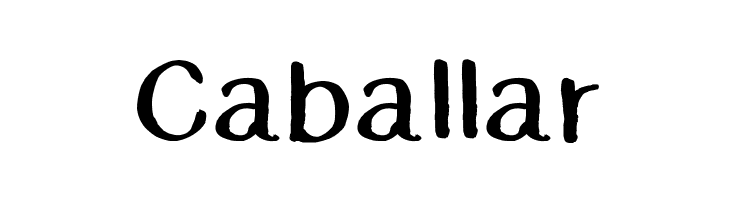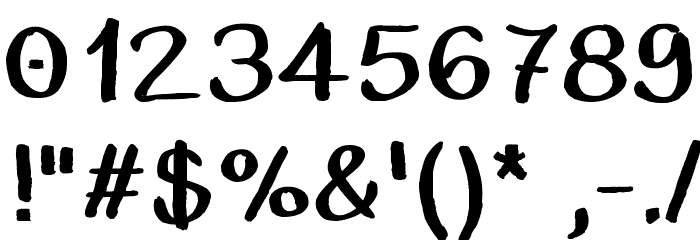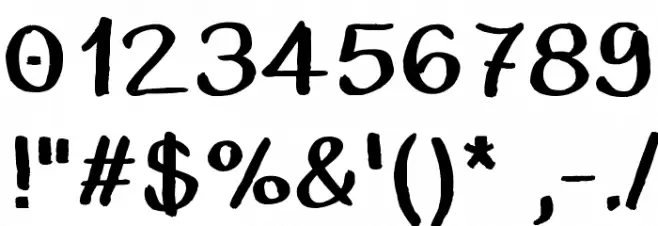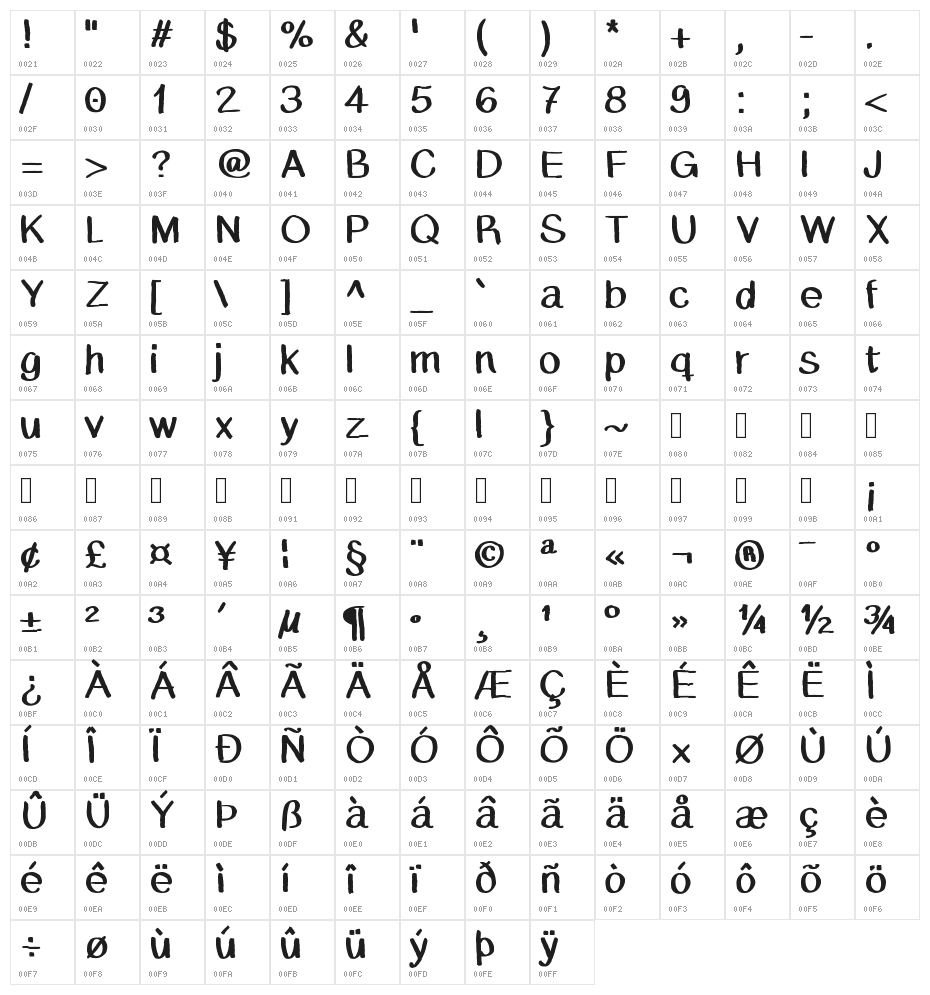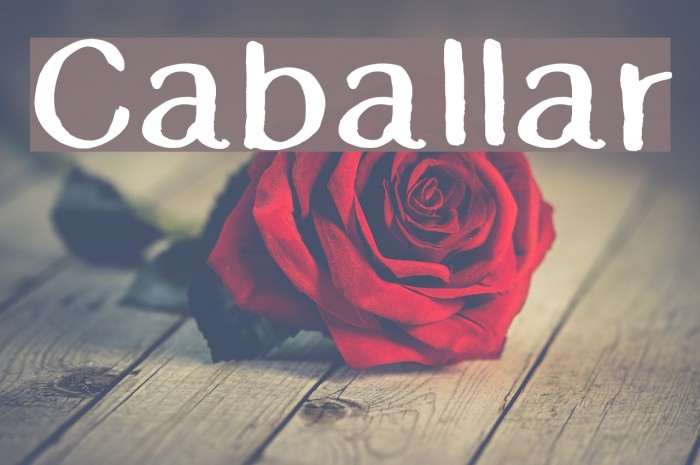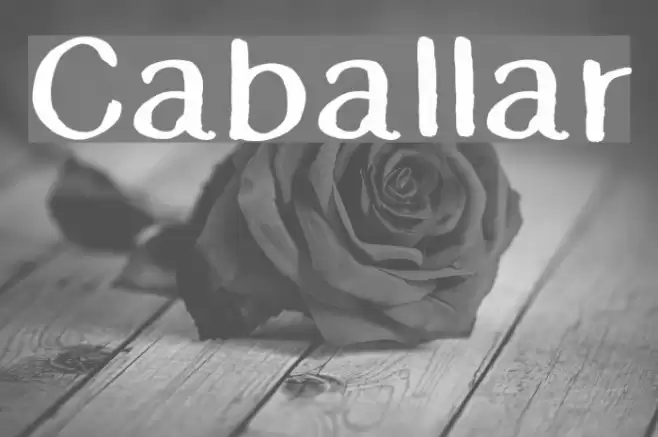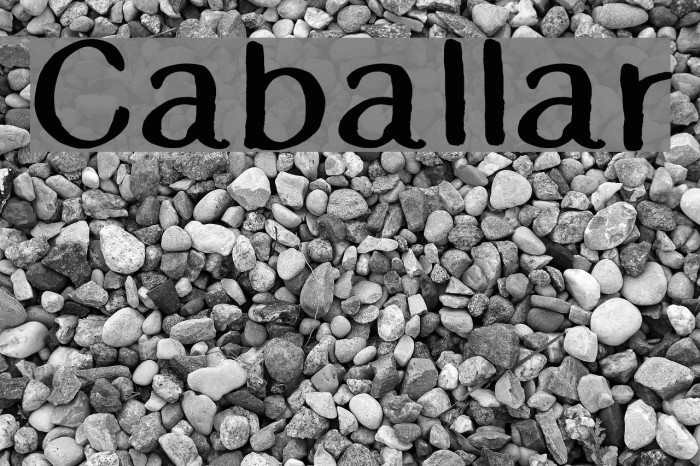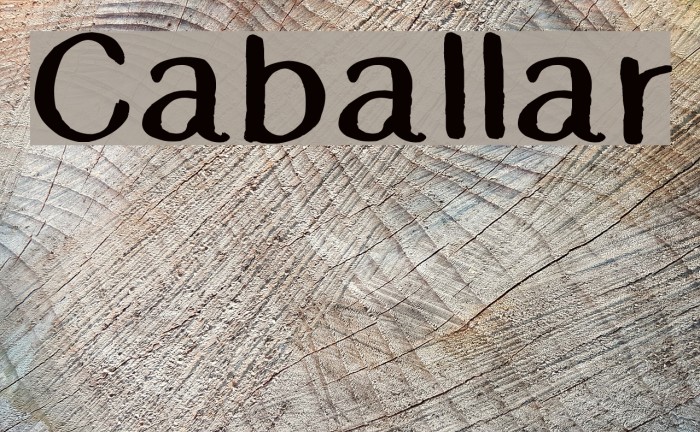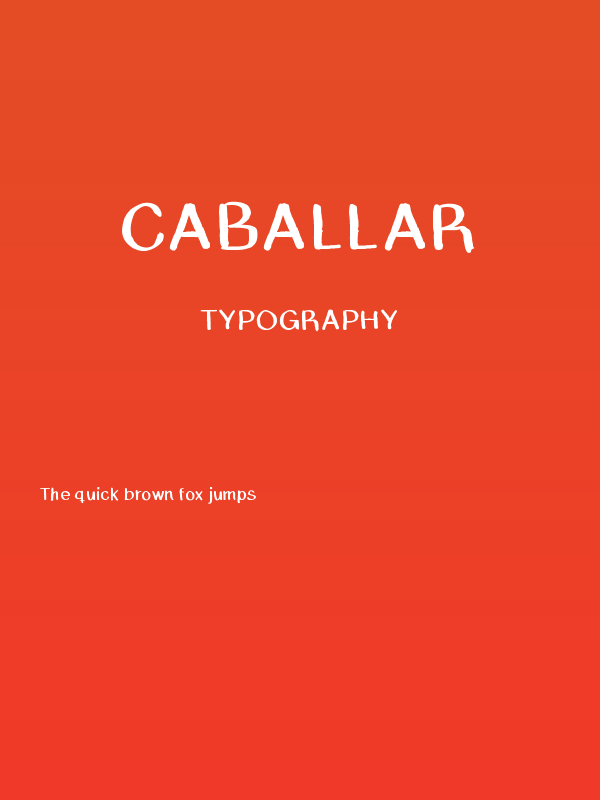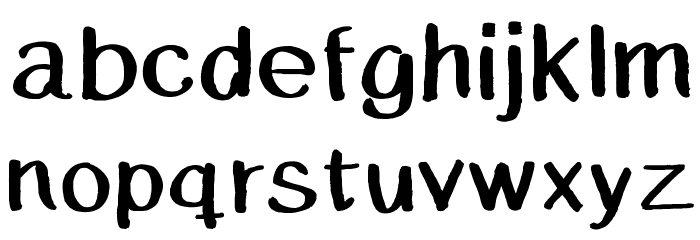
Caballar Font
Caballar Description
This font features a playful and informal style, characterized by its hand-drawn appearance. The letters have a slightly irregular shape, giving them a casual and approachable feel. The strokes are bold and consistent, with rounded edges that soften the overall look. The uppercase and lowercase letters maintain a uniform width, while the numbers and special characters follow the same design principles, ensuring cohesion across all elements. The font's design is reminiscent of handwriting, making it suitable for projects that aim to convey a personal or friendly tone.
| Proposed Projects | Ideal for children's books, greeting cards, casual branding, and social media graphics. |